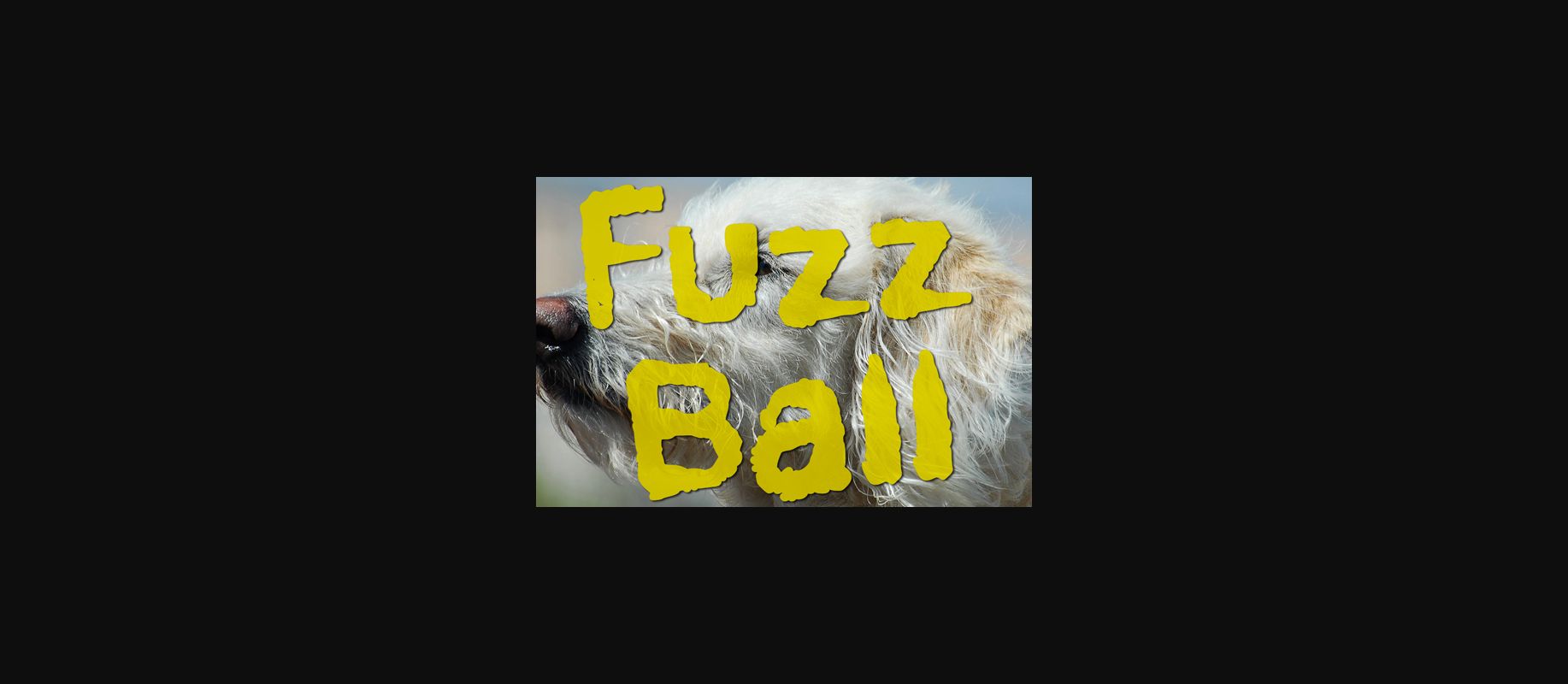
HomeDecorative FontsFuzzball Font Decorative Fonts Fuzzball Font FacebookXPinterestWhatsApp 1 of 1 About Fuzzball Font Cute cats, fuzzy dogs, here is a font to match your love of fuzzy-wuzzy-ness. DOWNLOAD NOW People also explored Dingbats Font The Bug Font Wall on Air Font Take It Easy Font Master Brush Font Karenina Handwriting Font Kallsthon Font Wanders Font Marphidy Script Font 261 0 TagsFuzzball Font Previous articleBams Glitch FontNext articleCut It Font LEAVE A REPLY Cancel reply Comment: Please enter your comment! Name:* Please enter your name here Email:* You have entered an incorrect email address! Please enter your email address here Website: Save my name, email, and website in this browser for the next time I comment. Personal Use Free Crack Man Personal Use Free Read more about this font Neuropol Personal Use Free Read more about this font Predators Personal Use Free Read more about this font Masker Area Personal Use Free Read more about this font BLOG 5 Fonts That Will Dominate Design Trends in 2026 5 Fonts for 2026 That Will Dominate Design Trends Typography plays a critical role in visual communication, and as we look ahead to 2026, it’s... Using Fonts in Digital Marketing: Tips to Strengthen Your Brand Identity Best Fonts for YouTube Videos: Make Your Thumbnails Stand Out Fonts That Capture the Spirit of New York City